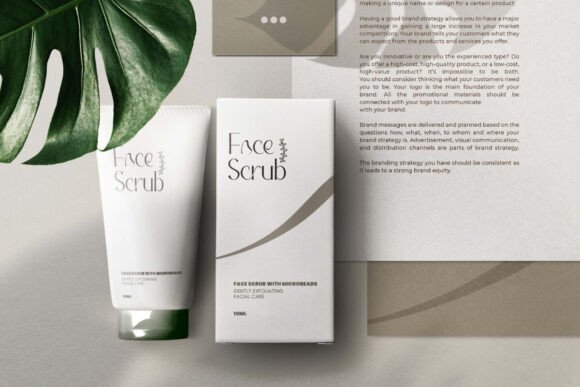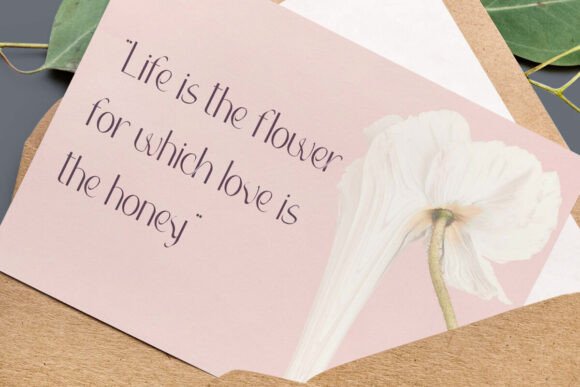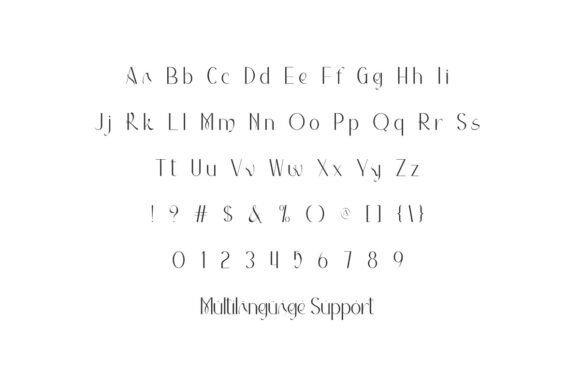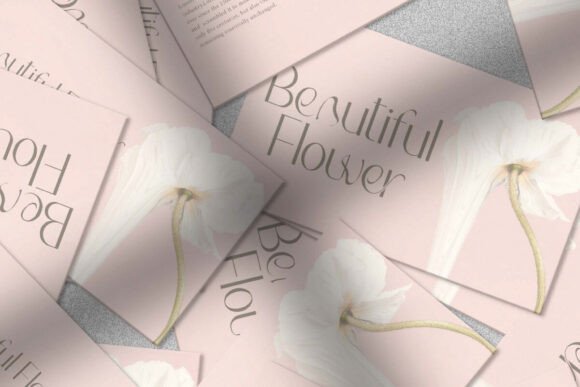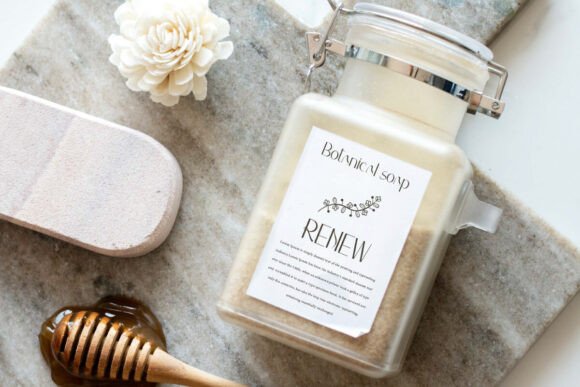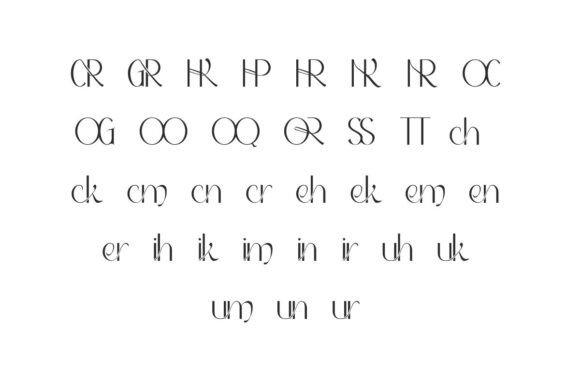
Discover the Timeless Charm of Euphroes Font
Have you ever stared at a blank canvas, waiting for the perfect font to bring your design to life? That’s exactly where I was when I stumbled upon Euphroes Font – a stunning sans serif display font that exudes simplicity and sophistication. Its unique lines and curves seemed to dance on the screen, whispering promises of elegance and refinement.
Euphroes Font is more than just a pretty face; it’s a versatile tool designed to elevate your creative projects. Whether you’re working on a luxury brand, a high-end event, or a photography portfolio, this font is sure to make a lasting impression. With its modern aesthetic, Euphroes Font is the perfect companion for designers seeking to craft exceptional visual experiences.
Euphroes Font Key Features
- Resolution Support: Supports high-resolution display with crisp and clear typography, making it ideal for digital applications.
- Unique Character Set: Features an extended character set, including a wide range of languages and special characters, making it suitable for multilingual projects.
- Font Style Variations: Offers various font styles, including Regular, Italic, Bold, and Bold Italic, providing designers with flexibility in creating visually appealing designs.
- Scalability: Designed to be highly scalable, ensuring that the font remains legible and visually appealing at various font sizes and resolutions.
Euphroes Font Review
I recently had the chance to work with Euphroes Font, and I must say it’s a unique addition to any design project. Here are my honest thoughts on this font.
Unique style: Euphroes Font has a distinct aesthetic that sets it apart from other fonts. It’s perfect for projects that require a touch of elegance and sophistication.
Good legibility: Despite its complex design, Euphroes Font is still easy to read, even at smaller font sizes.
High-resolution support: This font looks great in high-resolution displays, making it ideal for modern design projects.
Limited character set: Euphroes Font doesn’t have a comprehensive character set, which can be a problem for languages that require a wide range of characters.
Not suitable for body text: While Euphroes Font is great for headings and titles, it’s not the best choice for body text due to its complex design.
Euphroes Font is a solid choice for designers who want to add a touch of elegance to their projects. However, its limitations make it less versatile than other fonts. With proper use, Euphroes Font can elevate your designs and make them stand out.
Euphroes Font Practical Application Guide
The Euphroes font is a versatile, elegant script font suitable for a wide range of applications. To use it in your design projects, follow these steps:
For optimal results, use the Euphroes font in combination with elegant, high-contrast backgrounds. Limit text to short paragraphs or sentences to maintain readability.
Experiment with different font sizes and styles to create visual interest and hierarchy in your design.
Alternatives to Euphroes Font
Playfair Display is a luxurious serif font ideal for high-end branding, fashion, and luxury goods. It has a classic feel with elegant lines, making it perfect for formal invitations, magazines, and advertising campaigns.
Comparison to Euphroes Font: While both fonts are elegant and sophisticated, Playfair Display has a more classic and luxurious feel, whereas Euphroes Font has a modern and minimalist look. Playfair Display is better suited for formal and high-end designs, whereas Euphroes Font is versatile and can be used for a wide range of designs.
Merriweather is a classic serif font that exudes a sense of tradition and sophistication. It’s ideal for body text, academic papers, and historical designs. Its readability makes it perfect for long-form content and educational materials.